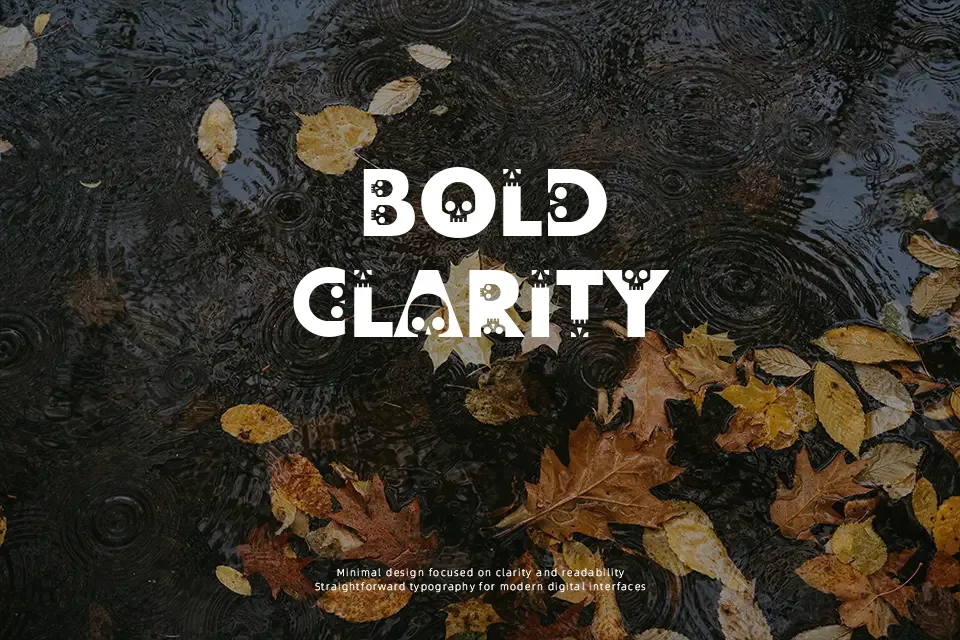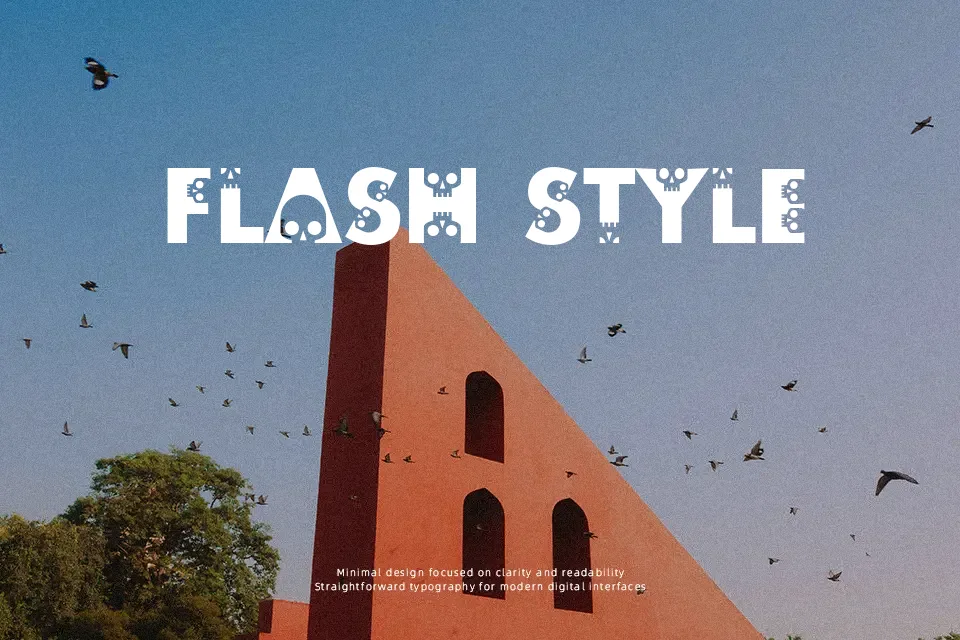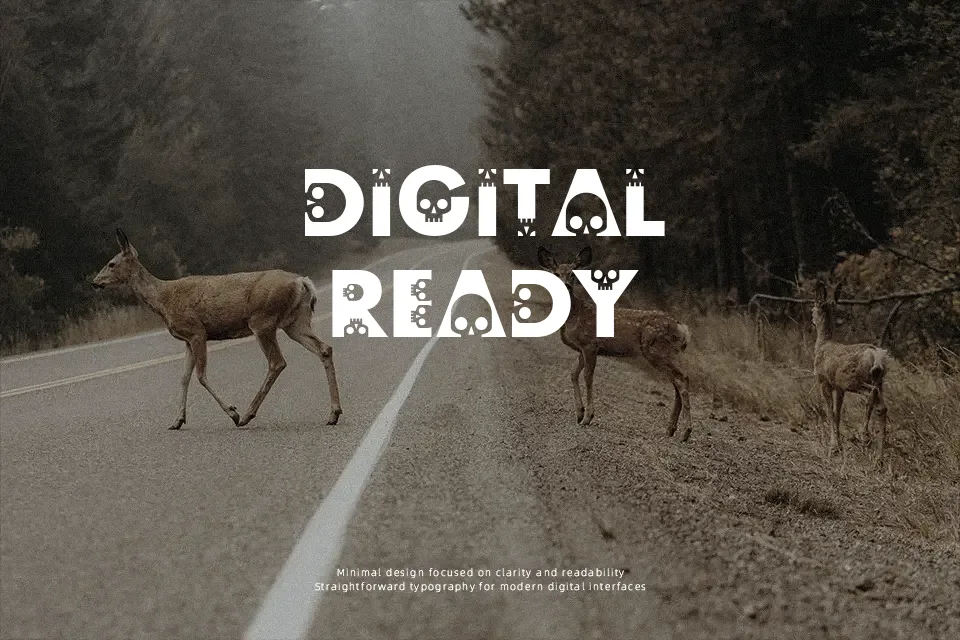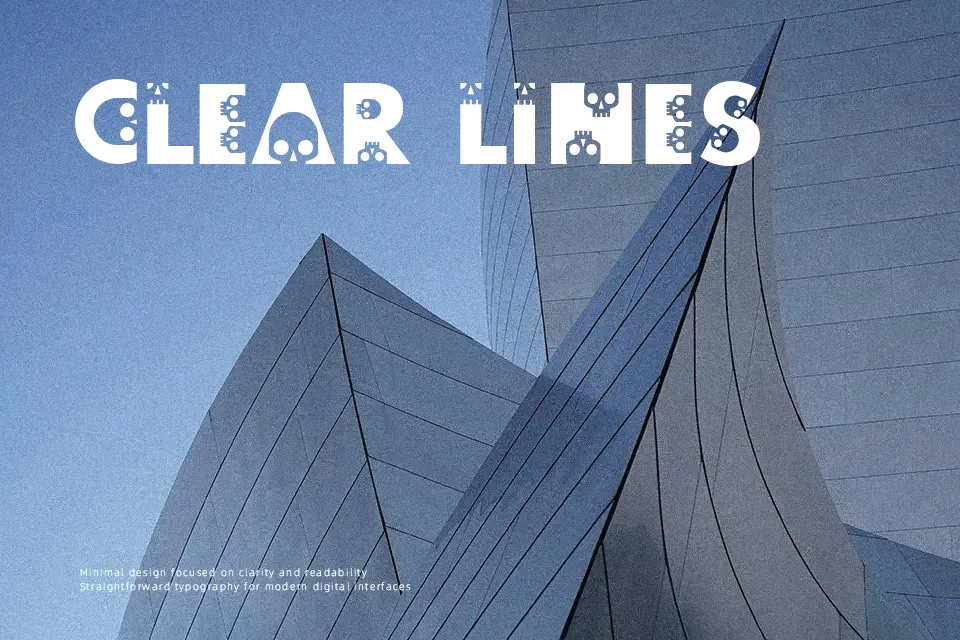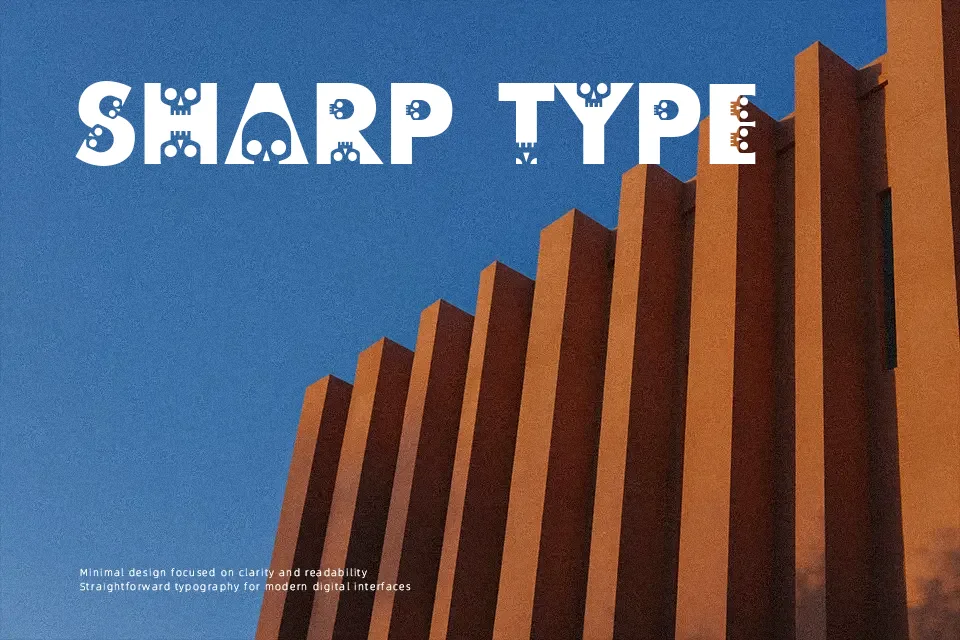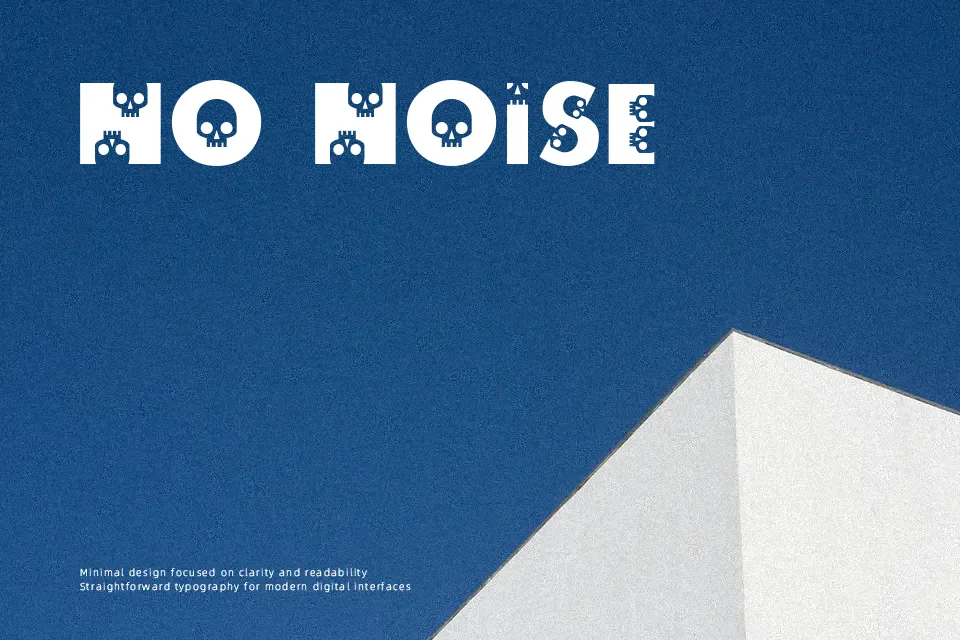
Skullphabet Font
Designed by Skull-A-Day
Skullphabet Font replaces conventional letter shapes with compact skull illustrations arranged as an alphabet. The forms have a bold, rounded silhouette with low stroke contrast and fairly even proportions, giving the character set a deliberately graphic, decorative rhythm. Spacing appears open enough for individual letters to remain recognizable in large display settings, while the skull details make words visually dense at smaller sizes. It works most naturally for short titles, themed signage, and Halloween artwork. The novelty construction creates immediate impact in headlines, but it is not comfortable for extended reading or small text.
Best For: Halloween party invitations,spooky event posters,haunted house signage,dark novelty apparel graphics
Perfect for advertising, headline, and holiday, with a creative and decorative style.